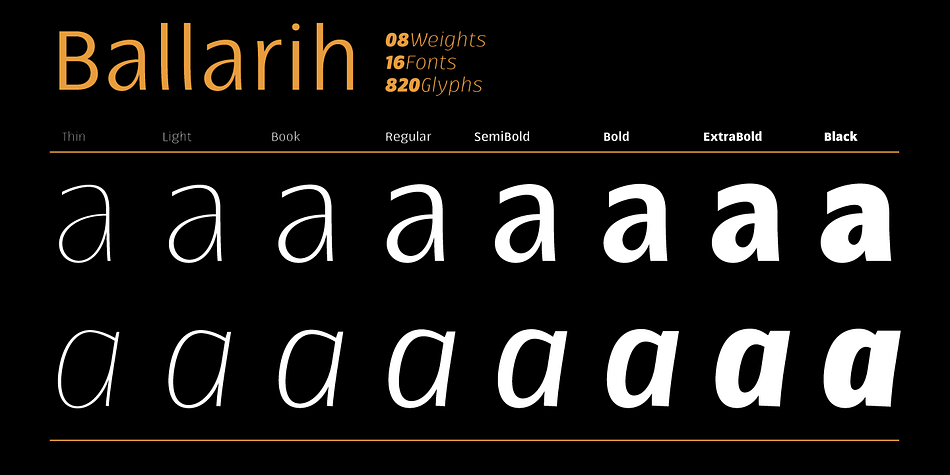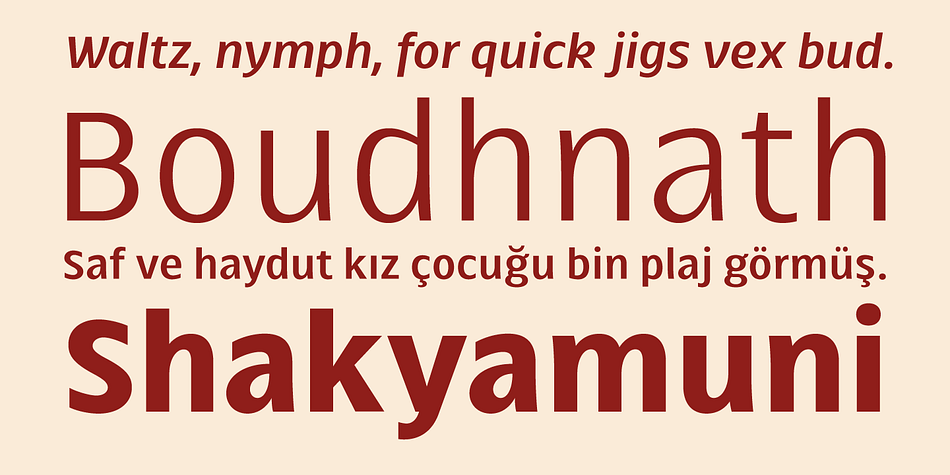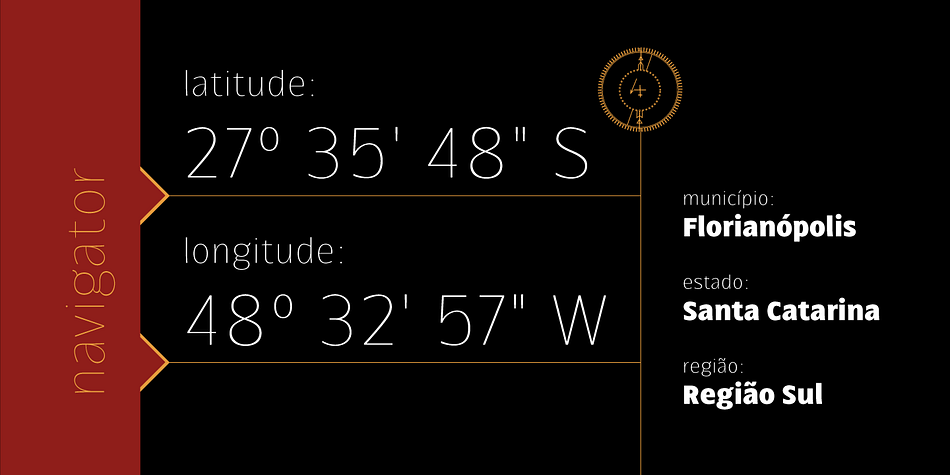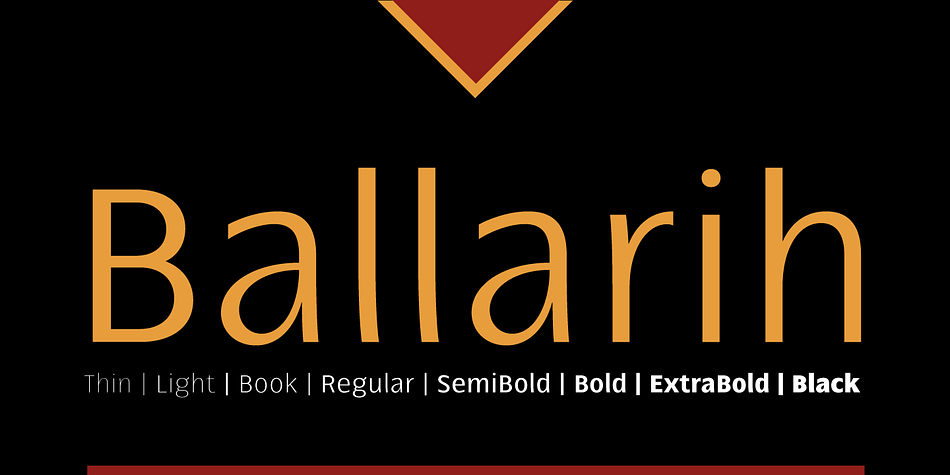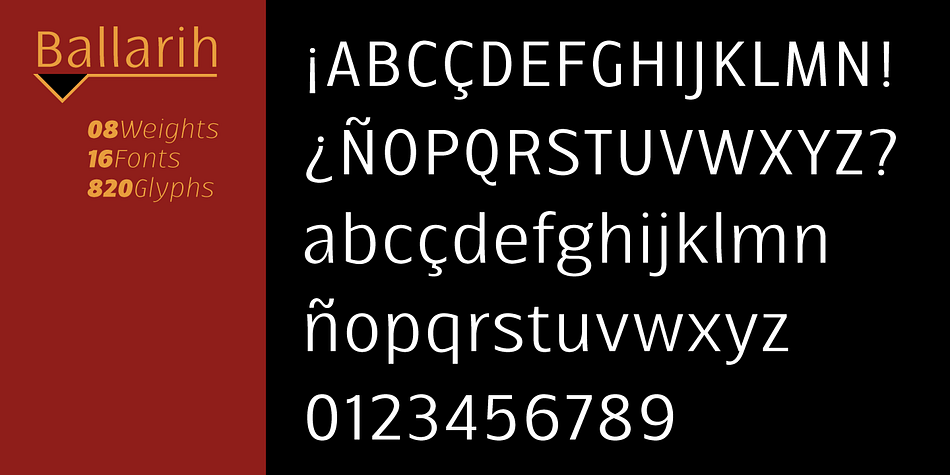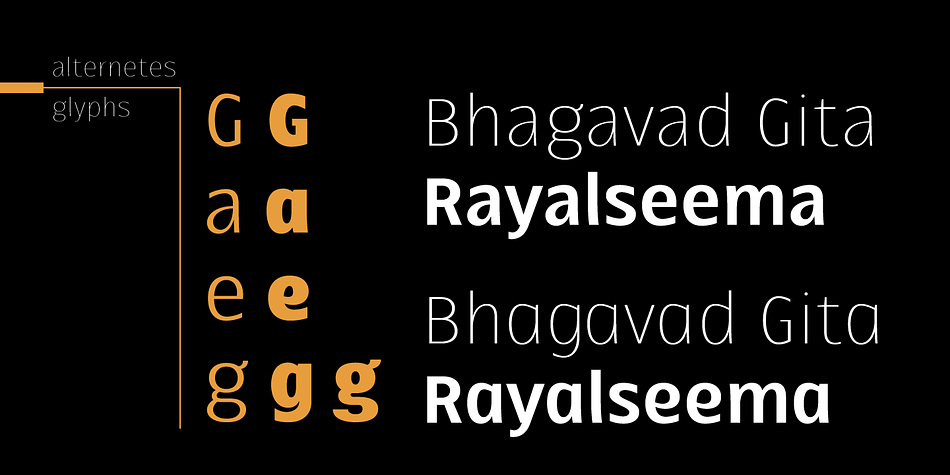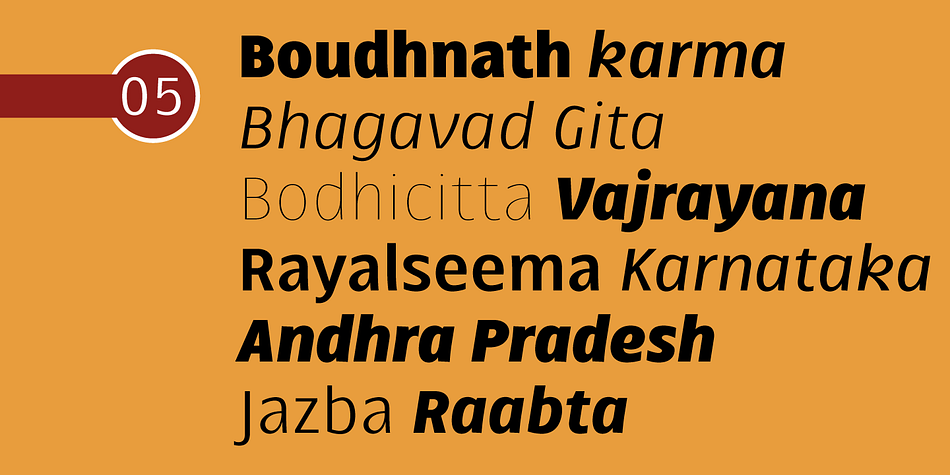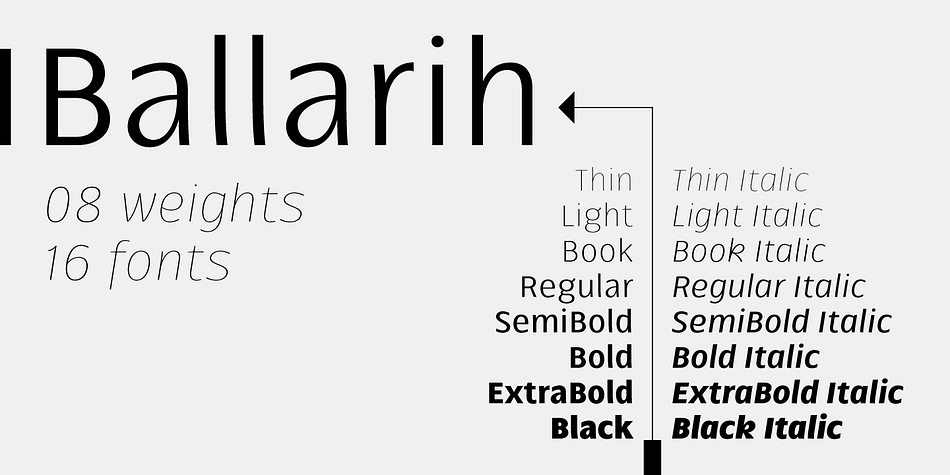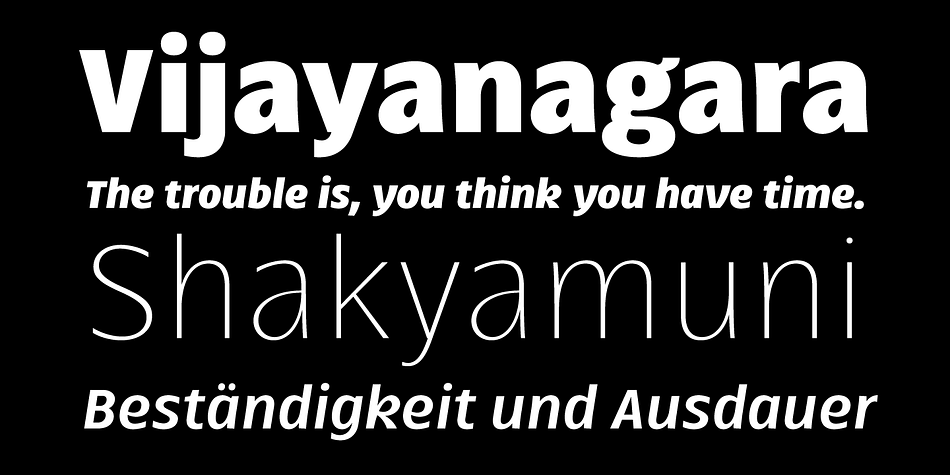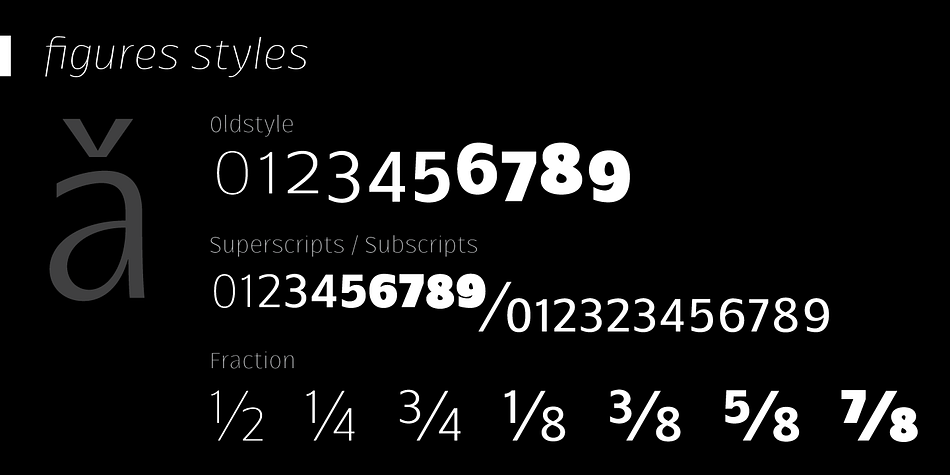
Designed by Jefferson Cortinove, Ballarih is a sans serif font family. This typeface has sixteen styles and was published by Sea Types.
Ballarih is a contemporary humanist typography, including 16 fonts with 08 weights and italics. Characterized by a prominent x-height and excellent readability for both web and print. Ballarih contains 820 glyphs including tabular figures, ligatures, fractions, small caps, alternate glyphs, case-sensitive forms, superscripts, subscripts and extensive language support.